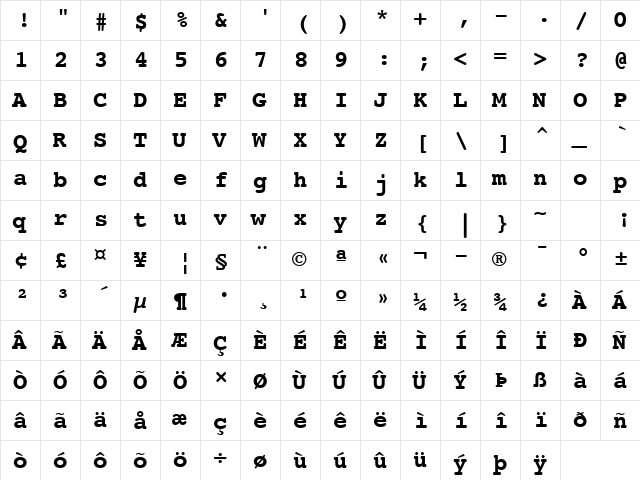
Courier10 BT Bold
Design Context for Courier10 BT Typeface
Courier10 BT uses fixed-width spacing throughout, giving it the structured, systematic character associated with coding environments and technical documentation. The heavy weight commands attention and anchors typographic hierarchies.
Pro Tip: Pair Courier10 BT with a proportional sans for UI contexts where code-style labels and regular body copy need to coexist.